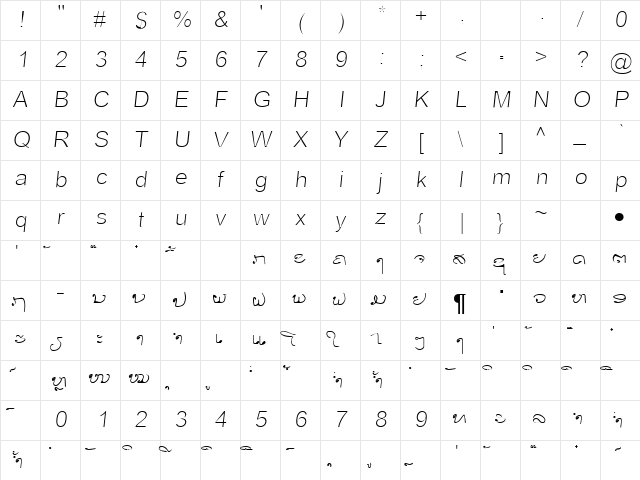
Alice2 Lao Regular
Design Context for Alice2 Lao Typeface
Alice2 Lao takes a measured approach to typography — its balanced proportions and neutral character make it a reliable workhorse for both digital and print work.